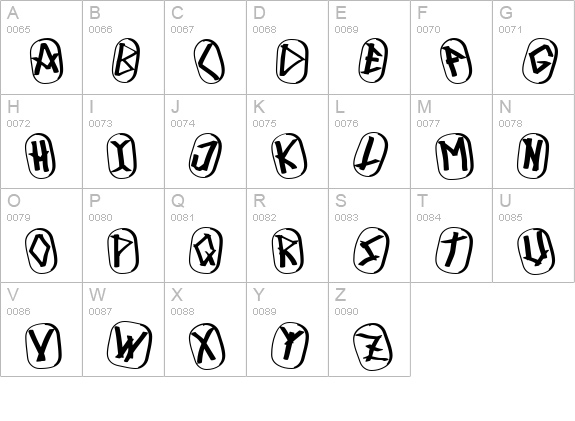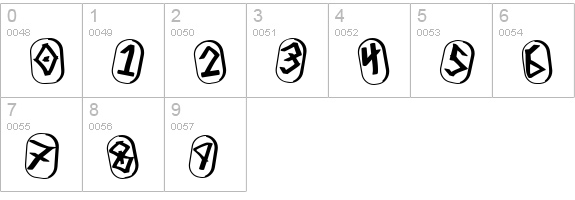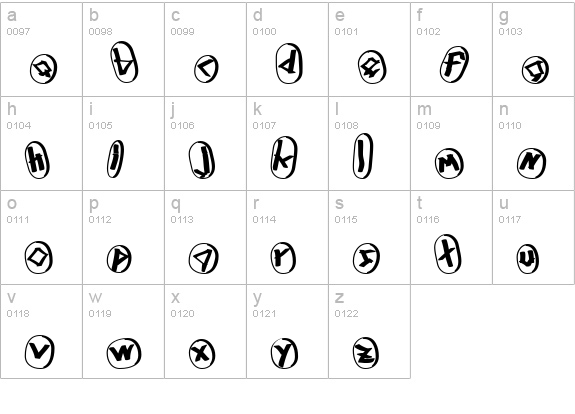
Runez of Omega Three Font Details
Runez of Omega Three font is a stunning display font that combines elements of elegance and modernity. Its sleek lines and unique design make it perfect for a wide range of projects, from branding to packaging to social media graphics. The font features intricate details and a bold yet sophisticated style that is sure to make your designs stand out. What's even better is that Runez of Omega Three font is completely free to download at FontsMarket.com. This means you can easily add this beautiful font to your collection without breaking the bank. Whether you're a professional designer looking for a fresh new font or a hobbyist looking to spice up your projects, Runez of Omega Three font is a fantastic choice that won't cost you a dime. Download it today and let your creativity shine with this stunning typeface.